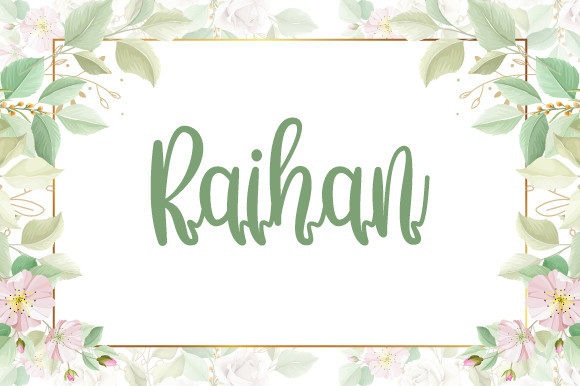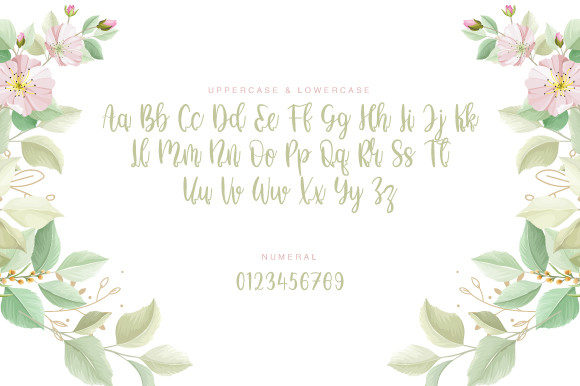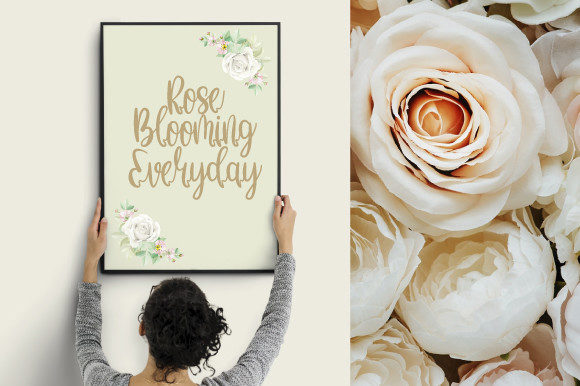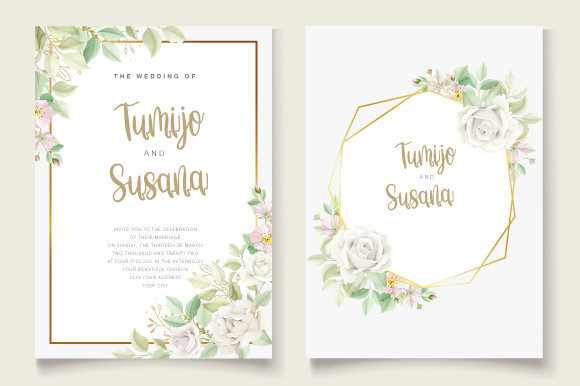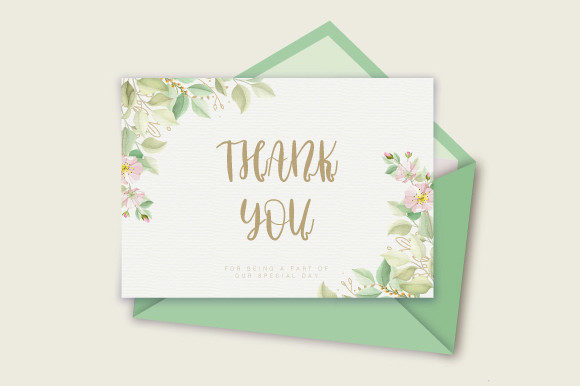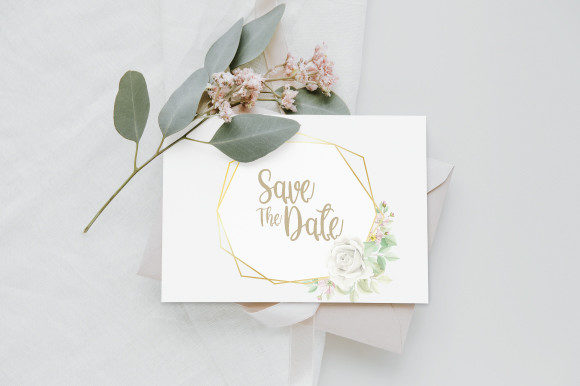
Raihan Font
About Raihan Font
Raihan is a neat and paint brushed handwritten font. This gentle font will look gorgeous on a variety of design ideas. It will add a joyful and romantic touch to each of your projects!